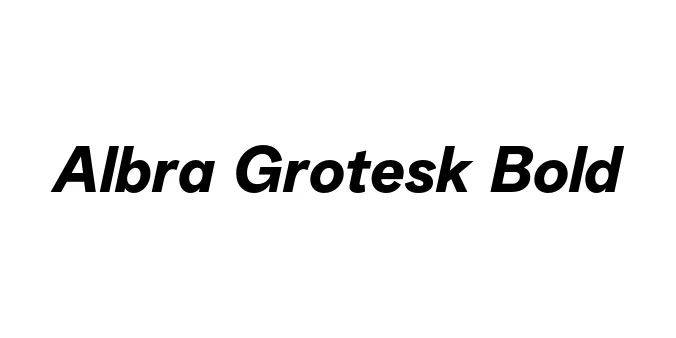
Albra Grotesk Bold
Designed by BumBumType
Albra Grotesk Bold is a contemporary sans-serif typeface that serves as a modern evolution of the classic grotesque genre. Developed by the BumBumType foundry, this weight provides a powerful visual weight that commands attention without sacrificing the elegance and fluidity inherent in the wider Albra collection. Its design features a balanced mix of sharp geometric foundations and subtle organic curves, offering a sophisticated aesthetic for professional projects.
This typeface is particularly noted for its high legibility and versatility across various media. With its generous x-height and open counters, Albra Grotesk Bold excels in high-resolution display environments and sophisticated editorial layouts. It effectively bridges the gap between traditional Swiss-style typography and modern digital aesthetics, making it a favorite for designers focusing on high-end branding and clean user interfaces.
Albra Grotesk Bold Best Uses
Outstanding for high-impact titles and editorial headers in magazines.
Perfect for creating a professional and modern corporate identity.
Highly effective for large-scale print and promotional graphics.
Clear and legible for bold UI elements and mobile navigation menus.